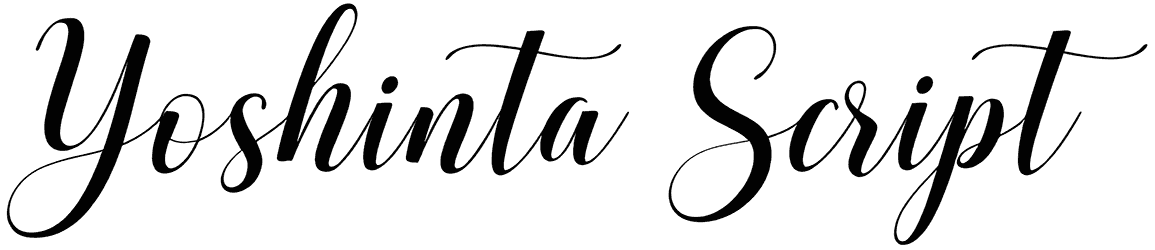
Yoshinta Script Font
If you are looking for a ravishing and natural letterform to garnish your words and communicate more friendliness, this calligraphy font would be a nice option. Yoshinta Script font has a classic and delicate form, and covering almost all characters will give you a chance to use it for some words or a long text. Your wedding invitation card is going to be eye-catching with this cursive font.